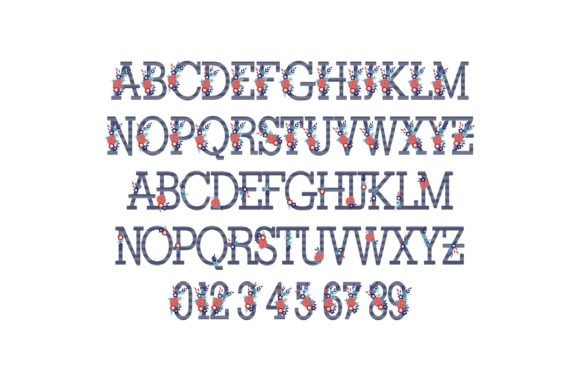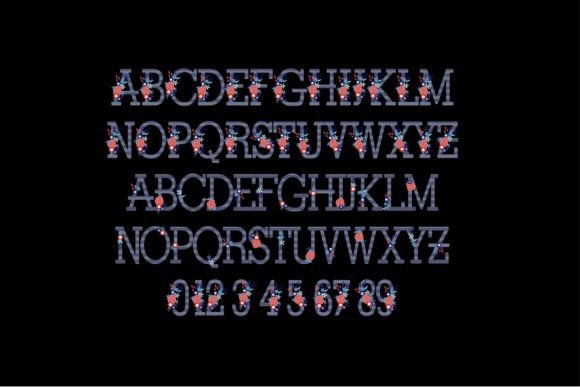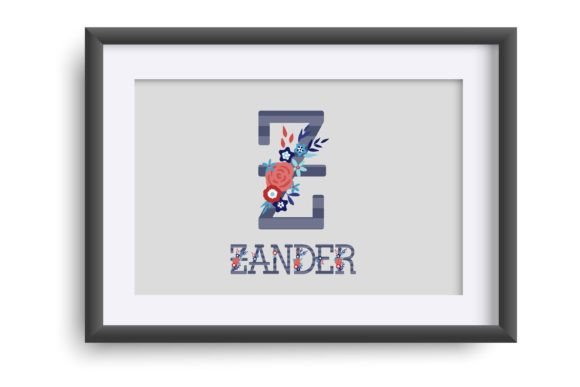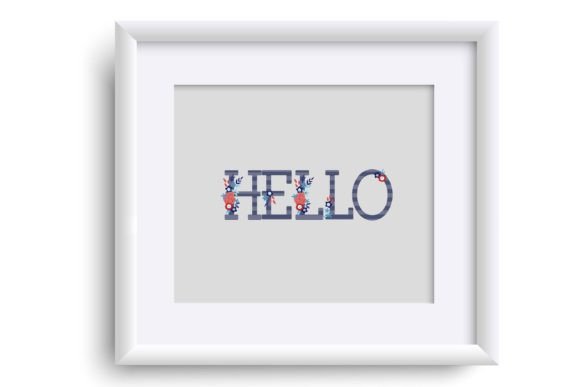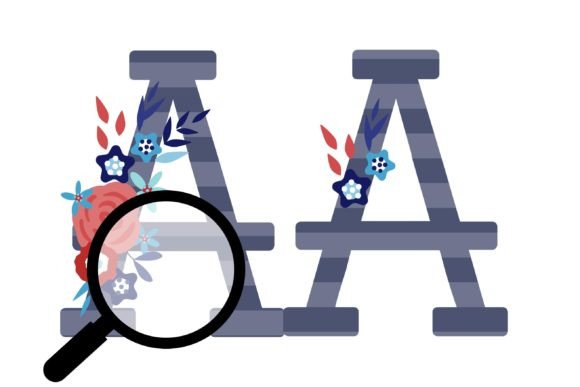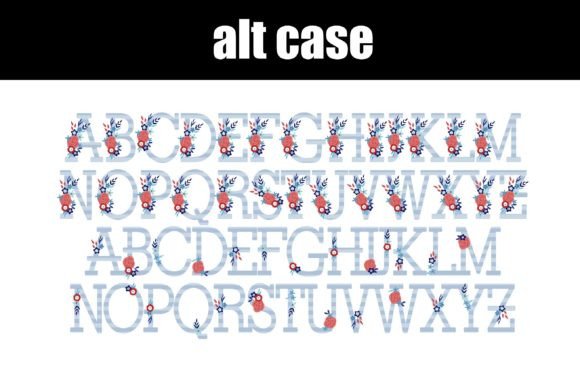
Brighten Up Your Designs with the All-American Charm of Blessed Usa Font
You’re sitting at your desk, staring at a blank page, trying to conjure up the perfect design for your client’s patriotic project. You’ve got the red, white, and blue theme down, but something’s missing – a font that captures the essence of America’s spirit. That’s where Blessed Usa Font comes in – a full-color font that brings a playful twist to traditional striped serif lettering.
This font is more than just a novelty; it’s a valuable tool for designers looking to add some personality to their work. With its unique floral pattern and bold color scheme, Blessed Usa Font is perfect for creating eye-catching graphics, logos, and designs that celebrate American pride. And the best part? It’s easy to use – simply install it like any other font, and you’re ready to go.
- Unique Characteristics: The font features a unique blend of modern and vintage elements, giving it a distinctive and eye-catching appearance.
Blessed Usa Font Review
When I first saw the Blessed Usa Font, I was immediately drawn to its unique, nostalgic feel. The font is designed to evoke a sense of American charm and character, and I think it does a great job of that. ✨
The font has a few standout features that make it a great choice for certain projects. Here are a few things that work well:
- ✨ Nostalgic feel: The font has a classic, retro vibe that’s perfect for projects that need to evoke a sense of American history.
- ✨ Versatility: Despite its nostalgic feel, the font is surprisingly versatile and can be used for a wide range of projects, from logos to signage.
- ✨ Distinctive look: The font has a distinctive look that’s sure to grab attention and make your project stand out.
Of course, no font is perfect, and the Blessed Usa Font has a few limitations:
- ⚠️ Limited character set: The font has a relatively limited character set, which can make it difficult to use for projects that require a lot of custom characters.
- ⚠️ May not be suitable for all projects: The font’s nostalgic feel may not be the right fit for every project, and some users may find it too old-fashioned or kitschy.
Overall, I think the Blessed Usa Font is a great choice for projects that need a unique, nostalgic feel. While it may have some limitations, I think it’s a great option for designers who are looking for something a little different.
Here are some tips to get the most out of the Blessed Usa Font:
- Use it for patriotic designs, such as 4th of July decorations or American-themed graphics.
- Pair it with bold, eye-catching colors to make a statement.
The Blessed Usa Font is commonly used for:
- Patriotic designs, such as flags, banners, and posters.
- American-themed graphics, such as maps, icons, and logos.
- Marketing materials, such as flyers, brochures, and business cards.